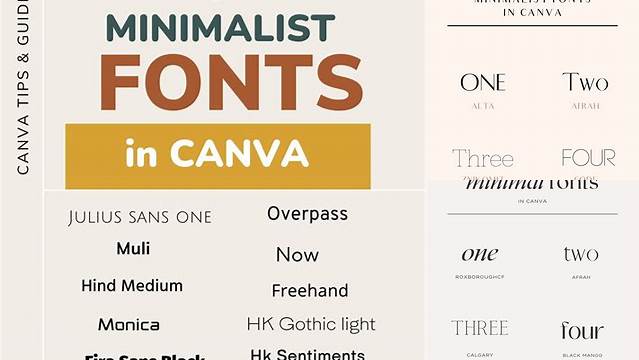
Minimalist Fonts: Aesthetic Canva Design Guide
Hey guys! Are you looking to add a touch of understated elegance to your designs? Then you've come to the right place! Let's explore the world of aesthetic minimalist fonts on Canva. Canva is a fantastic platform for creating all sorts of designs, from social media posts to presentations, and the right font can make all the difference. We're diving into fonts that are clean, simple, and effortlessly chic. These fonts will help you achieve that minimalist aesthetic that's so popular right now. So, buckle up and get ready to discover your new favorite fonts!
What Makes a Font 'Aesthetic Minimalist'?
Before we jump into specific font recommendations, let's talk about what exactly makes a font "aesthetic minimalist". It's not just about being simple; it's about conveying a sense of intentionality, clarity, and sophistication through simplicity.
- Clean Lines: Minimalist fonts typically feature clean, crisp lines without excessive ornamentation or embellishments. Think geometric shapes and a lack of fussy serifs.
- Simplicity: The core of minimalism is simplicity. These fonts avoid unnecessary details, focusing on the essential form of each letter.
- Legibility: Even with their minimalist design, these fonts prioritize legibility. They need to be easily readable in various sizes and contexts.
- Versatility: A good minimalist font should be versatile enough to work in a variety of design projects, from headings to body text.
- Modern Feel: These fonts often have a modern, contemporary feel, reflecting current design trends.
So, when you're on the hunt for the perfect aesthetic minimalist font, keep these qualities in mind. It's about finding a font that enhances your design without overpowering it. A great minimalist font can communicate a lot of information without being distracting. Many options are available, but finding the right one to communicate a specific message in your design projects may take time. You may need to explore a lot of font options to get the perfect one for your project.
Top Aesthetic Minimalist Fonts on Canva
Alright, let’s get to the good stuff! Here are some of my favorite aesthetic minimalist fonts that you can find right inside Canva:
Headings
When you are thinking of headings, you will need something that catches your audience's attention but is also simple and readable. It might take you a while to get the font pairing right, but when you find the right one, then it will be chef's kiss. Here are some fonts that you can consider for your headings:
- Raleway: This is a super versatile sans-serif font that works well for both headings and body text. It has a clean, modern look and comes in a variety of weights, giving you plenty of options.
- Montserrat: Another popular choice, Montserrat is a geometric sans-serif font that's highly readable and has a contemporary feel. It’s great for making a statement without being too loud.
- Oswald: If you're looking for something a bit bolder, Oswald is a great option. It's a sans-serif font designed for digital screens, so it's super clear and easy to read.
- Archivo Black: For a strong, impactful heading, Archivo Black is an excellent choice. Its bold, condensed design makes it perfect for grabbing attention.
- Poppins: With its geometric and clean design, Poppins is highly legible and versatile. It's a great option for headlines and subheadings, adding a modern touch to any project.
Body Text
For body text, readability is the key. You want something that's easy on the eyes and won't distract from your message. These fonts are the unsung heroes of minimalist design; they may not be flashy, but they ensure your message is delivered clearly and effectively. Using a simple font for body text will ensure that your audience can grasp the message that you are trying to tell them. Here are some fonts that you can consider for your body text:
- Open Sans: A classic for a reason, Open Sans is highly readable and works well in a variety of contexts. It's a neutral font that won't compete with other elements in your design.
- Lato: Lato is a sleek sans-serif font that's both modern and approachable. It's a great choice for body text because it's easy to read and has a friendly feel.
- Roboto: Roboto is a widely used font that's known for its clean lines and excellent readability. It's a versatile option that works well in both print and digital designs.
- Nunito Sans: With its rounded terminals and balanced proportions, Nunito Sans offers a friendly and approachable aesthetic. It's a great choice for creating a welcoming and easy-to-read body of text.
- Work Sans: Designed with screen readability in mind, Work Sans is optimized for digital environments. Its slightly condensed letterforms make it efficient in terms of space, while its clean and simple design ensures readability.
Font Pairing Tips for a Minimalist Aesthetic
Choosing the right fonts is only half the battle. Pairing them effectively is what will truly elevate your design. The right font pairing can transform a good design into a great one, enhancing readability and creating a visual hierarchy that guides the viewer's eye. Here are a few tips to help you master the art of minimalist font pairing:
Level Up Your Designs with Canva Fonts
And there you have it! A guide to aesthetic minimalist fonts on Canva. By incorporating these fonts into your designs, you can achieve a look that's both stylish and effective. Remember, the key to minimalism is simplicity and intentionality. Choose fonts that enhance your message without overpowering it, and always prioritize readability. Minimalist designs are all about creating a big impact with a small number of elements. So go forth and create something beautiful which is simple!